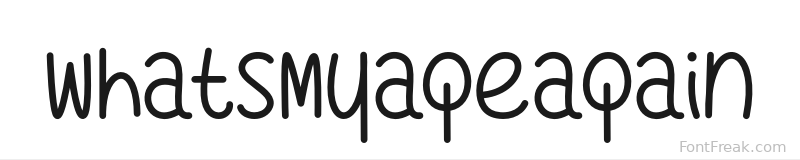
Whats My Age Again
WhatsMyAgeAgain
Whats My Age Again font by Misti Hammers is a playful display typeface that perfectly captures a youthful spirit. This font falls into the decorative category, characterized by its whimsical and slightly quirky appearance. The strokes are medium in weight, providing a balanced contrast that makes the letters easy to read while still maintaining a fun aesthetic. The spacing between characters is well-considered, ensuring clarity without sacrificing the font's playful nature. Unique decorative elements, such as rounded edges and slightly irregular shapes, enhance its charm, making it ideal for creative projects.
This font is particularly well-suited for a variety of use cases. It can add a lively touch to wedding invitations, where its playful style can set a joyous tone. Additionally, Whats My Age Again works wonderfully for movie posters, especially for comedies or family films, capturing an energetic and light-hearted vibe. Restaurant menus can also benefit from its unique flair, making dishes stand out in a fun way. Content creators and graphic designers will find this font valuable for social media graphics, as it draws attention and engages viewers effectively.
Targeting graphic designers, small business owners, and content creators, Whats My Age Again stands out as a versatile option for those looking to inject personality into their work. The font's ability to convey a sense of fun and relaxation makes it perfect for brands aiming for a casual, approachable image.
In summary, the Whats My Age Again font free download offers a distinctive blend of playfulness and clarity, making it an excellent choice for anyone wanting to add a touch of whimsy to their designs. Its unique visual characteristics and versatility ensure it will be a favorite among creative professionals.